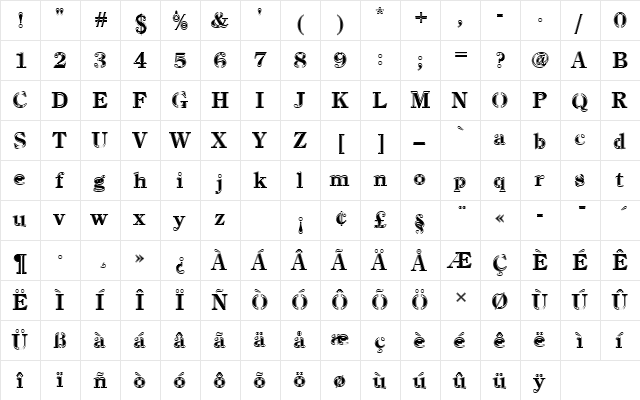
CenturyOldStyTBolIn1 Regular
Design Context for CenturyOldStyTBolIn1 Typeface
CenturyOldStyTBolIn1 is a composed and adaptable typeface that performs quietly and consistently across a wide range of design contexts.